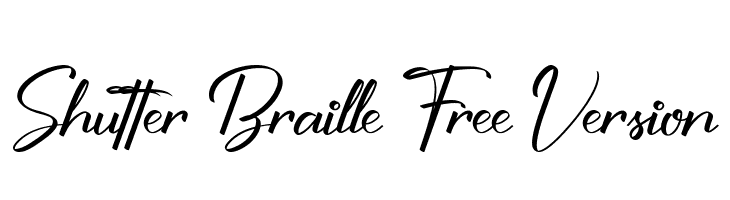
A bold, cursive font with a flowing, handwritten style.
A flowing, cursive font with elegant loops and a handwritten appearance.
A cursive, handwritten-style font with elegant loops and consistent strokes.